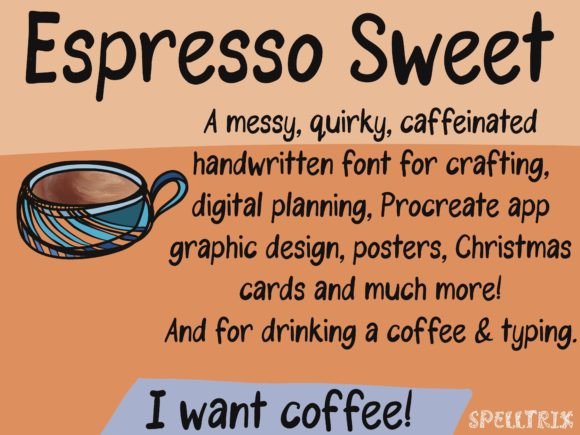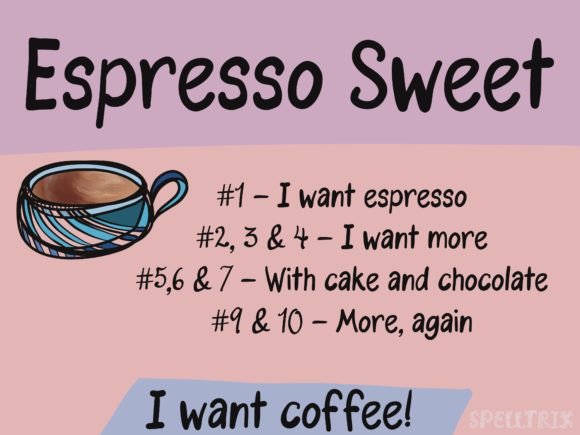
Introducing Espresso Sweet Font: A Handwritten Delight
Are you on the hunt for a font that exudes warmth, positivity, and character? Look no further than Espresso Sweet Font, a beautiful handwritten typeface that’s sure to capture your heart. This friendly and charming font is perfect for designers, crafters, and anyone looking to add a touch of personality to their projects.
The Charm of Espresso Sweet Font
Espresso Sweet Font is a hand-lettered typeface that’s full of life and energy. Its unique, flowing script is reminiscent of a carefree summer day, making it the perfect choice for projects that require a dash of whimsy and fun. Whether you’re designing a logo, creating a brand identity, or simply looking for a font to add some personality to your website, Espresso Sweet Font is sure to impress.
One of the best things about Espresso Sweet Font is its versatility. This font is perfect for a wide range of projects, including:
- Quotes: Add a touch of elegance and sophistication to your inspirational quotes with Espresso Sweet Font.
- Headings: Use Espresso Sweet Font to create eye-catching headings that draw attention and add visual interest to your website or blog.
- Logos: Create a unique and memorable logo for your brand with Espresso Sweet Font.
- Branding: Use Espresso Sweet Font to add a touch of personality to your brand identity, including business cards, letterheads, and more.
- Merchandise: Add a touch of charm to your merchandise, including t-shirts, mugs, and other promotional items.
- Websites: Use Espresso Sweet Font to add a touch of warmth and personality to your website.
Why Choose Espresso Sweet Font?
So why choose Espresso Sweet Font over other fonts? Here are just a few reasons:
- Unique and Characterful: Espresso Sweet Font has a unique and characterful design that’s sure to stand out from the crowd.
- Easy to Read: Despite its playful design, Espresso Sweet Font is easy to read, making it perfect for use in a variety of contexts.
- Versatile: Espresso Sweet Font is versatile and can be used in a wide range of projects, from logos and branding to websites and merchandise.
- High-Quality: Espresso Sweet Font is a high-quality font that’s designed to deliver exceptional results.
Design Tips and Tricks
If you’re new to using Espresso Sweet Font, here are a few design tips and tricks to help you get started:
- Pair with Other Fonts: Espresso Sweet Font pairs well with other fonts, including sans-serif and serif fonts. Experiment with different pairings to find the one that works best for your project.
- Experiment with Colors: Espresso Sweet Font looks great in a variety of colors, from bold and bright to soft and pastel. Experiment with different colors to find the one that works best for your project.
- Use it Sparingly: While Espresso Sweet Font is a beautiful font, it can be overwhelming if used too much. Use it sparingly to add a touch of personality to your project.
| Font Name | Espresso Sweet Font |
| Author | Spelltrix |
In conclusion, Espresso Sweet Font is a beautiful handwritten font that’s perfect for designers, crafters, and anyone looking to add a touch of personality to their projects. With its unique and characterful design, versatility, and high-quality construction, Espresso Sweet Font is sure to become a favorite in your font collection. So why wait? Download Espresso Sweet Font today and start adding a touch of warmth and positivity to your projects!